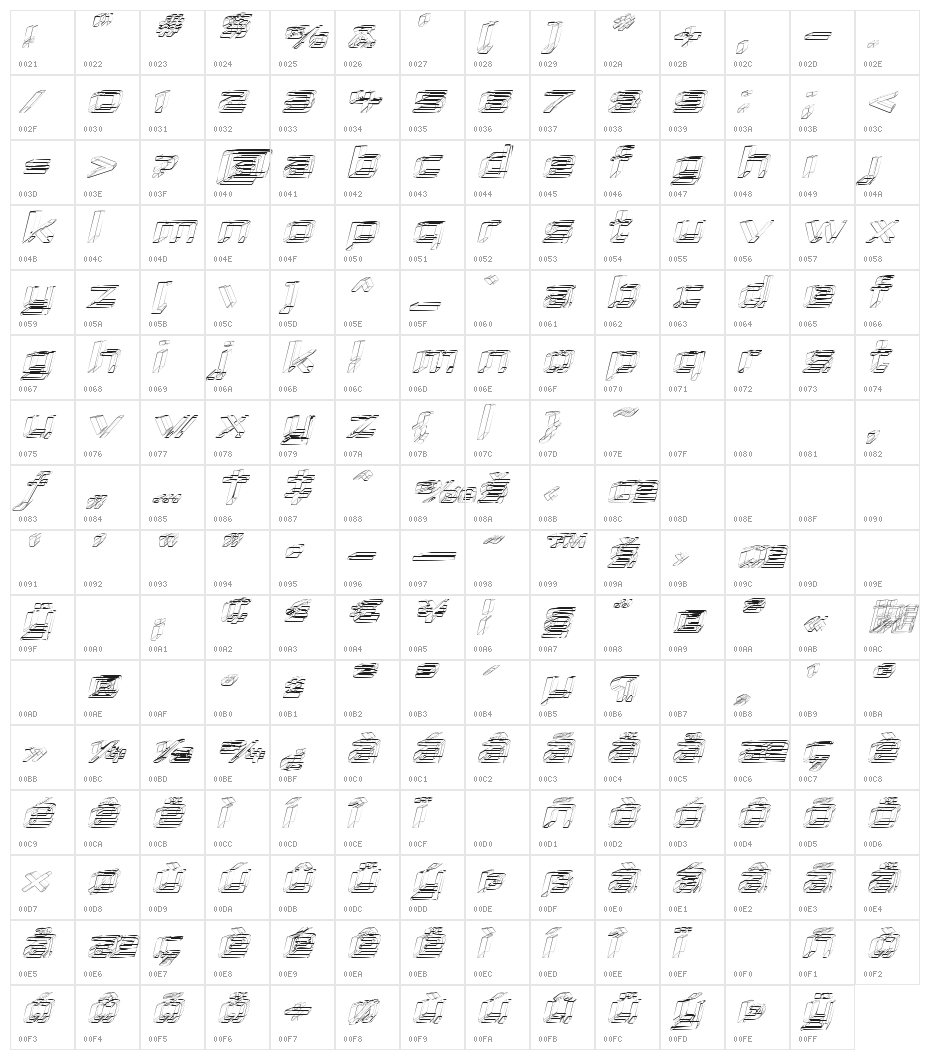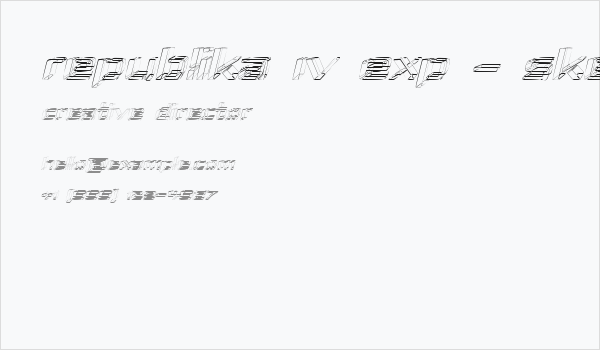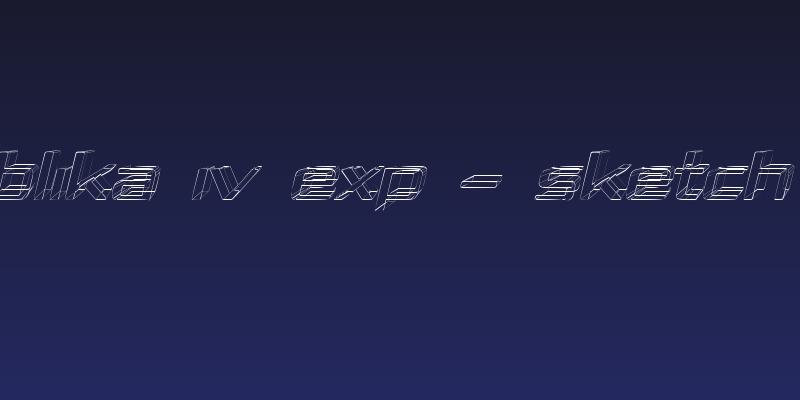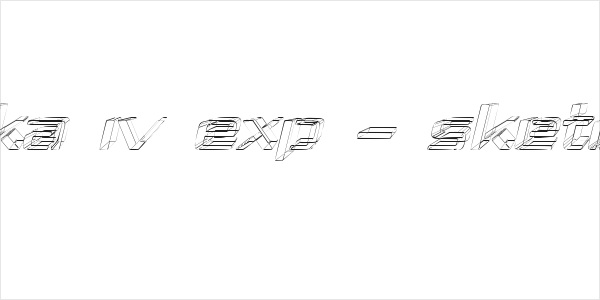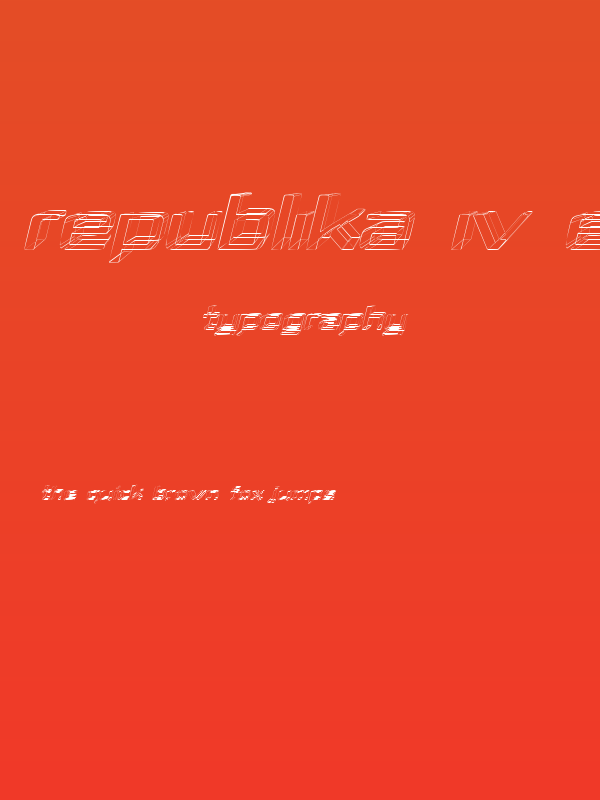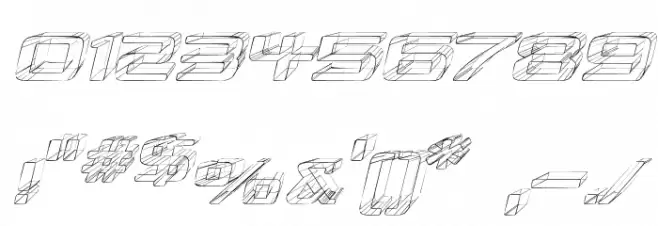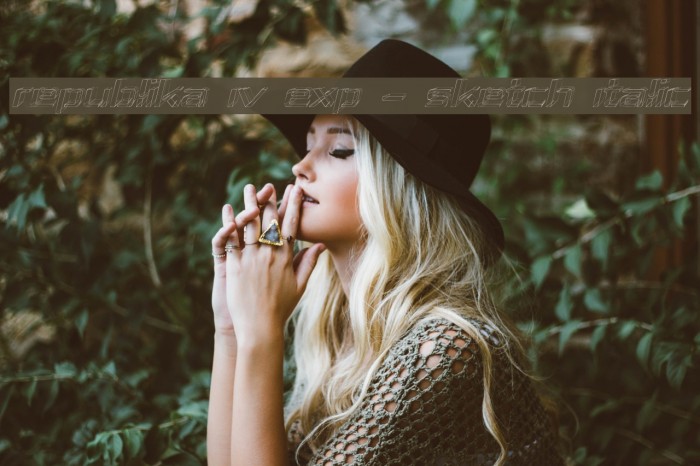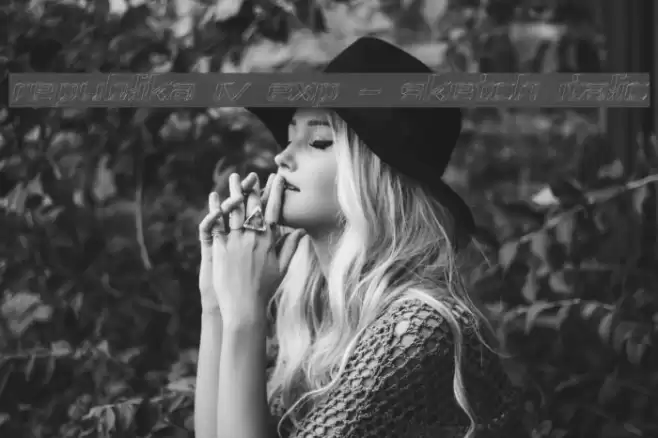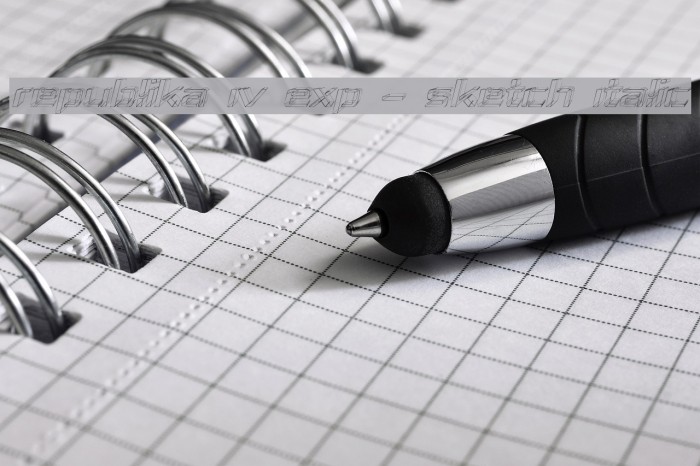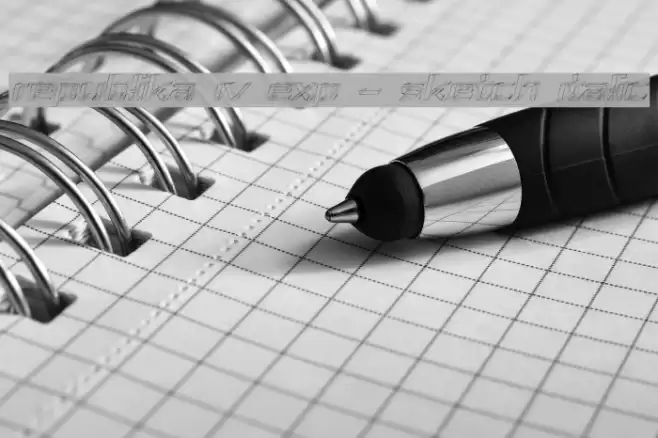
Republika IV Exp - Sketch Italic Font
Republika IV Exp - Sketch Italic Description
This font features a dynamic and futuristic design with a sketch-like quality. The characters are italicized, giving them a sense of motion and energy. The lines are bold and angular, creating a three-dimensional effect that adds depth and interest. The uppercase and lowercase letters maintain a consistent style, with sharp edges and a slightly condensed form. Numbers and special characters follow the same aesthetic, ensuring a cohesive look across all text elements. This font's unique style makes it stand out, perfect for projects that require a modern and edgy appearance.
| Proposed Projects | Ideal for branding, posters, video game graphics, and any project needing a modern, edgy look. |